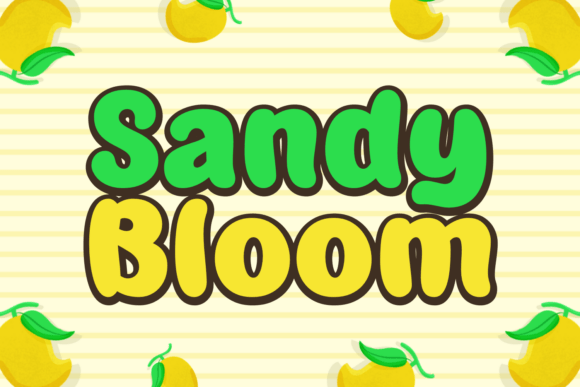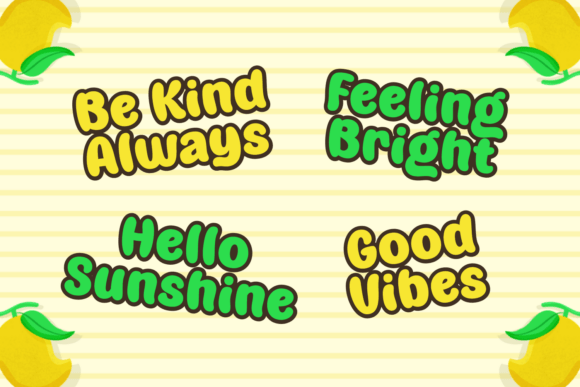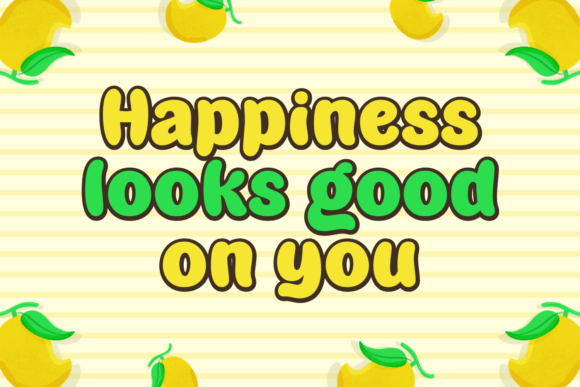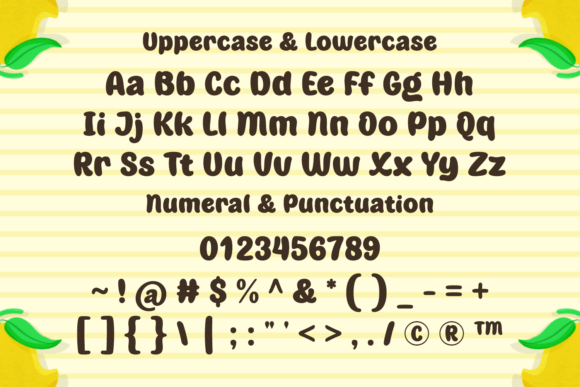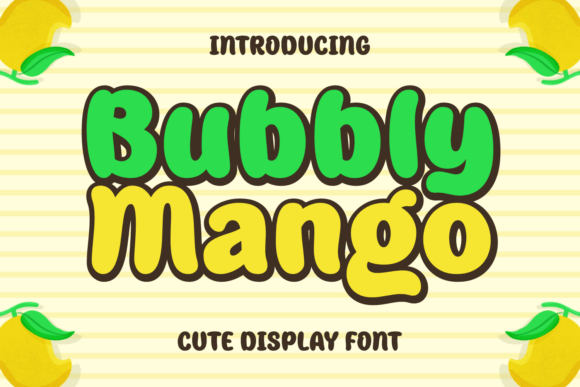
Introducing Bubbly Mango: The Ultimate Playful Display Font for Kids-Centric Projects
Are you tired of using the same old fonts for your kids-centric projects? Look no further! We’re excited to introduce Bubbly Mango, a delightful fusion of fun, art, and functionality that’s sure to bring a smile to every child’s face. This playful display font is hand-drawn in luscious strokes, delivering a bold statement that’s perfect for projects that require a dash of whimsy and charm.
A Celebration of Happy Colors
Bubbly Mango is more than just a font – it’s a celebration of happy colors, crafted with the audacity of funky styles. The font features cartoon-inspired, rounded edges that evoke a sense of whimsical charm, making it perfect for kids-centric projects such as children’s books, educational materials, and even craft projects like DIY tutorials and activity sheets.
Bubbly Mango Font Sample
Soft to the Sight, Youthful Aura
One of the standout features of Bubbly Mango is its soft and youthful aura. The font infuses every string of text with energy and vivacity, making it perfect for projects that require a playful and engaging tone. Whether you’re creating a children’s book, a craft tutorial, or even a social media post, Bubbly Mango is sure to bring a smile to your audience’s face.
Tropical Nuances and Food-Themed Inspiration
Drawing its essence from tropical nuances, Bubbly Mango is a food-themed font that’s simply irresistible. The font’s playful and colorful design is inspired by the sweetness of mangoes and the fun of tropical getaways. Whether you’re creating a recipe book, a food blog, or even a kids’ menu, Bubbly Mango is the perfect choice.
More than Just Decorative
Bubbly Mango is more than just a decorative font – it’s a friendly and inviting way to communicate with your audience. The font’s warm and welcoming feel makes it perfect for projects that require a personal touch, such as greeting cards, invitations, and even certificates.
Bubbly Mango is a versatile font that’s perfect for designers and crafters alike. Whether you’re creating digital projects or handmade crafts, this font is sure to add a touch of whimsy and charm to your work. Here are just a few ways you can use Bubbly Mango:
• Children’s books and educational materials
• Craft tutorials and activity sheets
• DIY projects and handmade crafts
• Social media posts and graphics
• Greeting cards and invitations